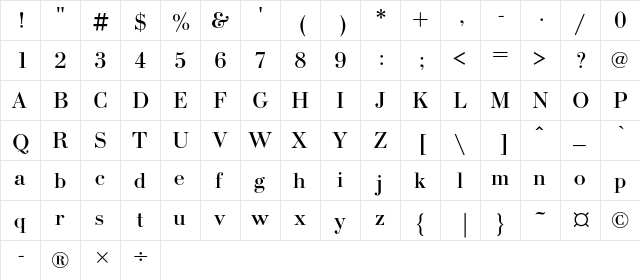
Margarit Regular
Design Context for Margarit Typeface
Margarit takes a measured approach to typography — its balanced proportions and neutral character make it a reliable workhorse for both digital and print work.
Pro Tip: Pair Margarit with a font of contrasting weight or personality to build a more expressive typographic hierarchy.